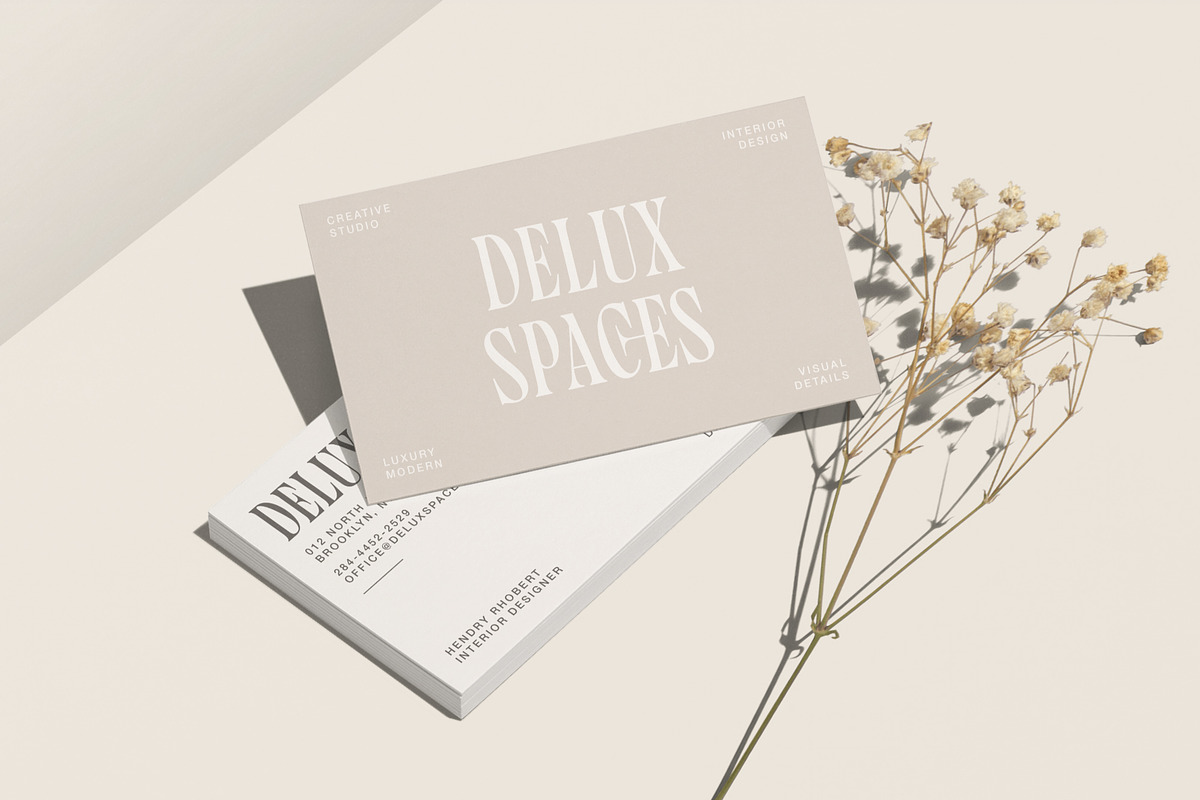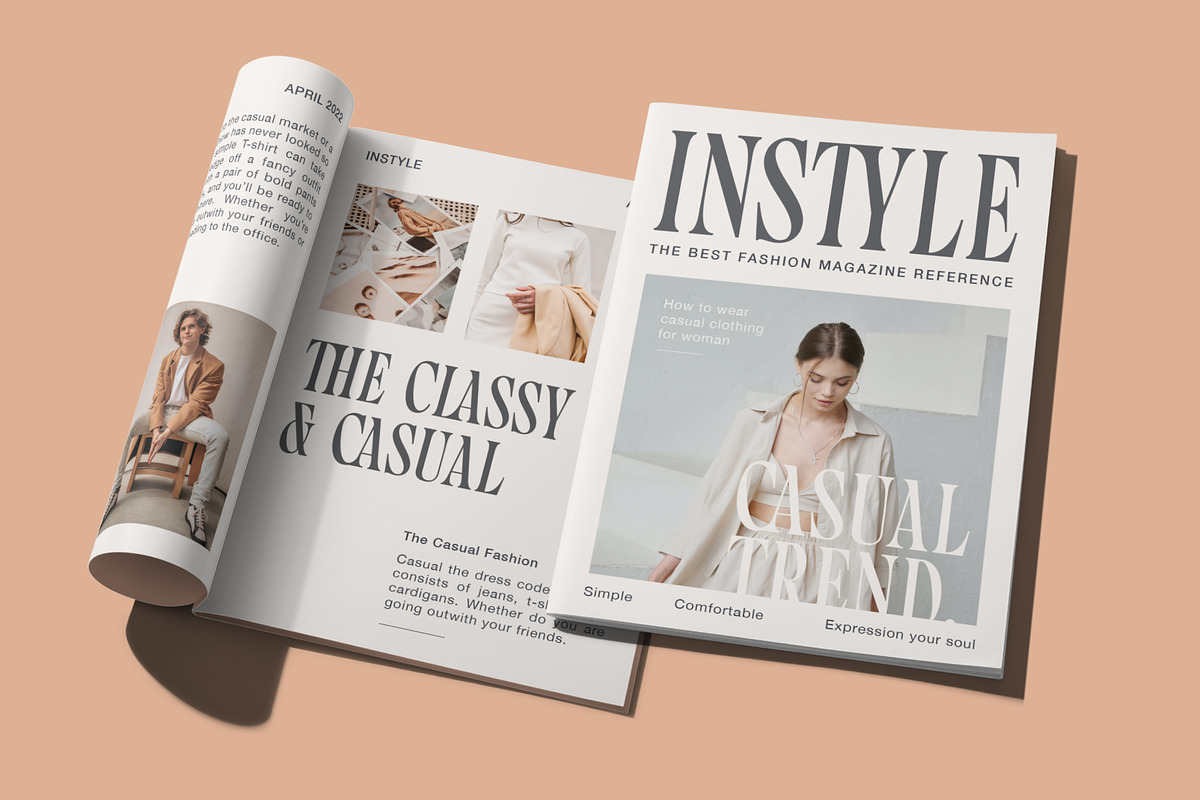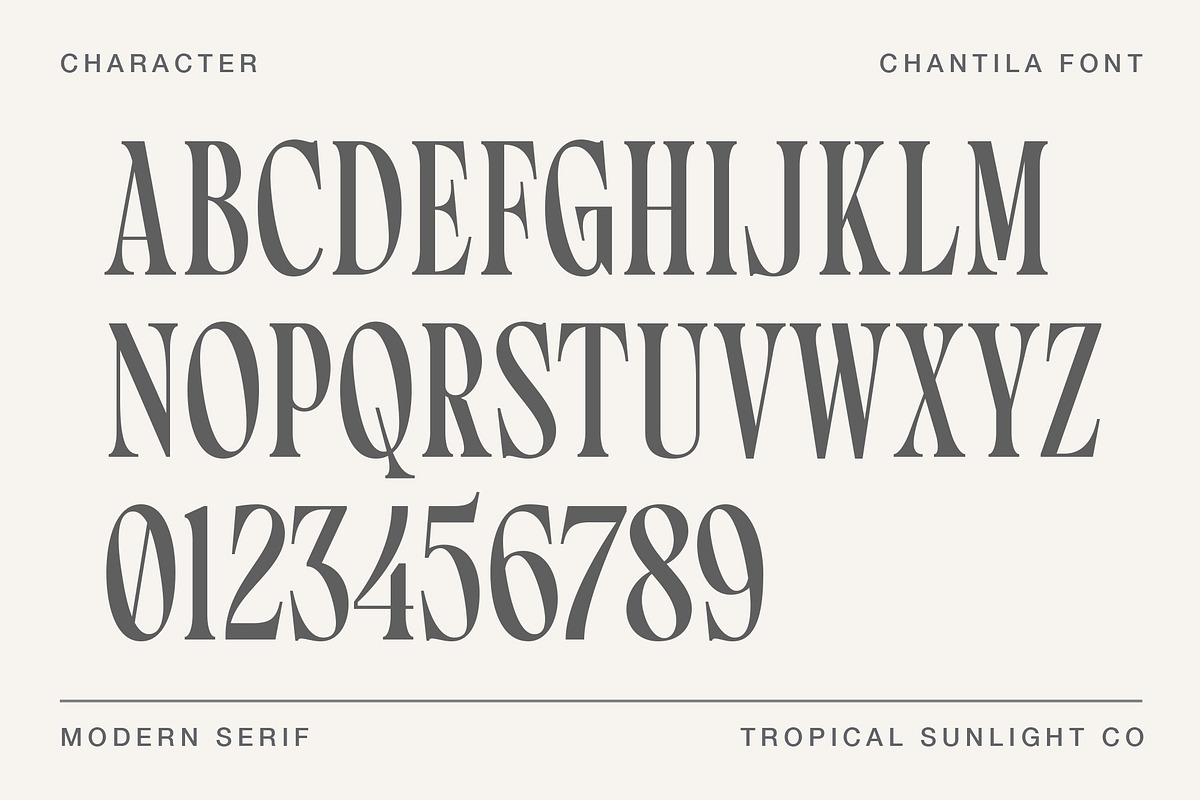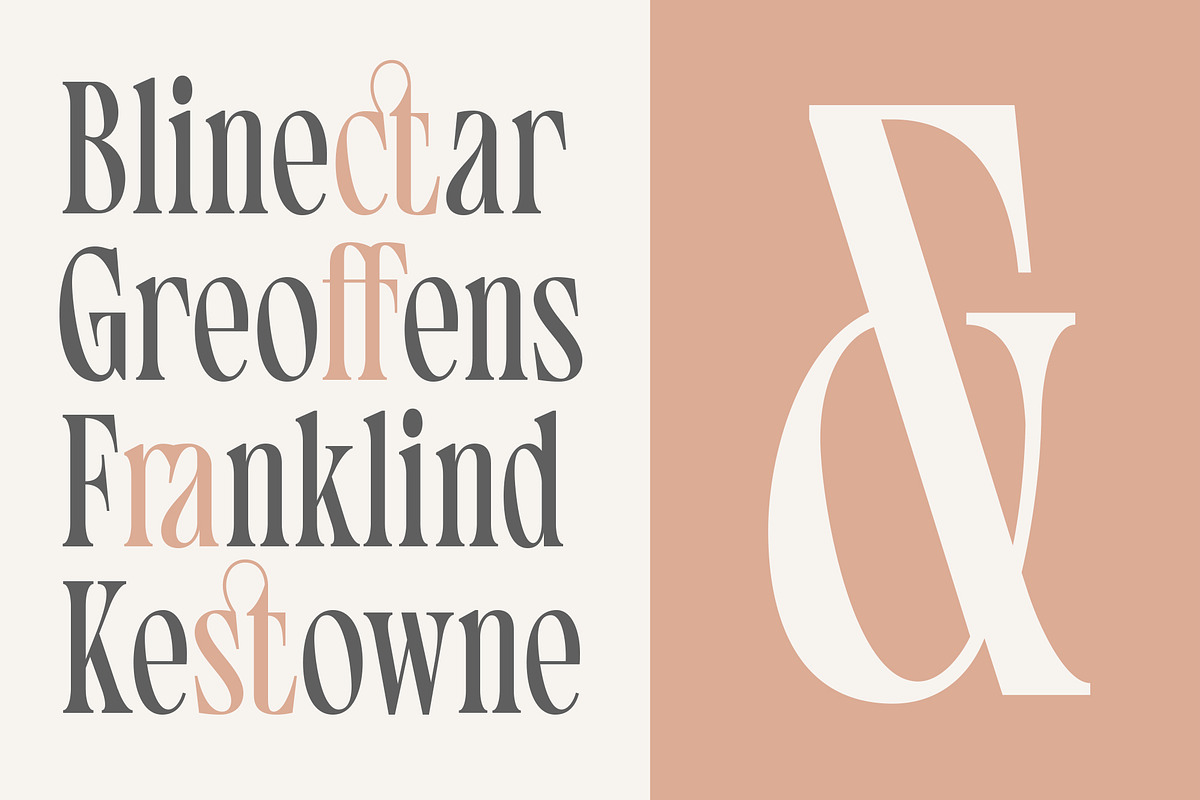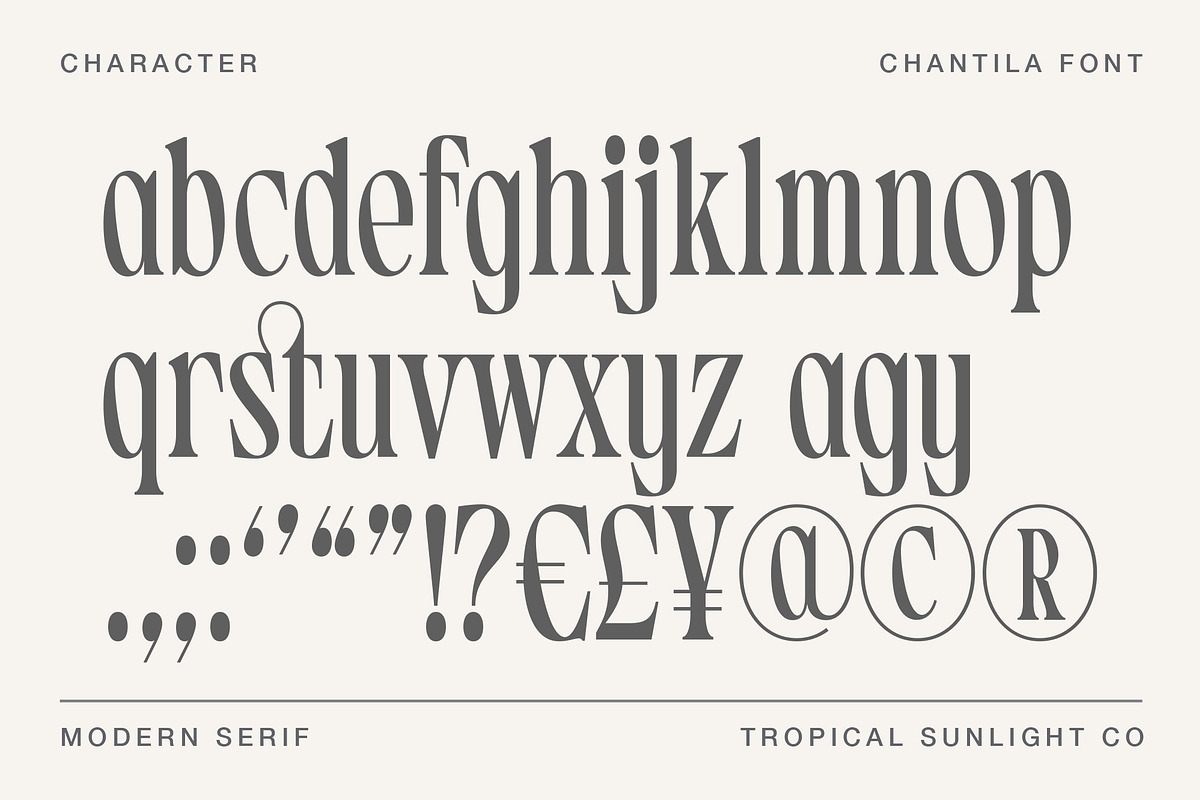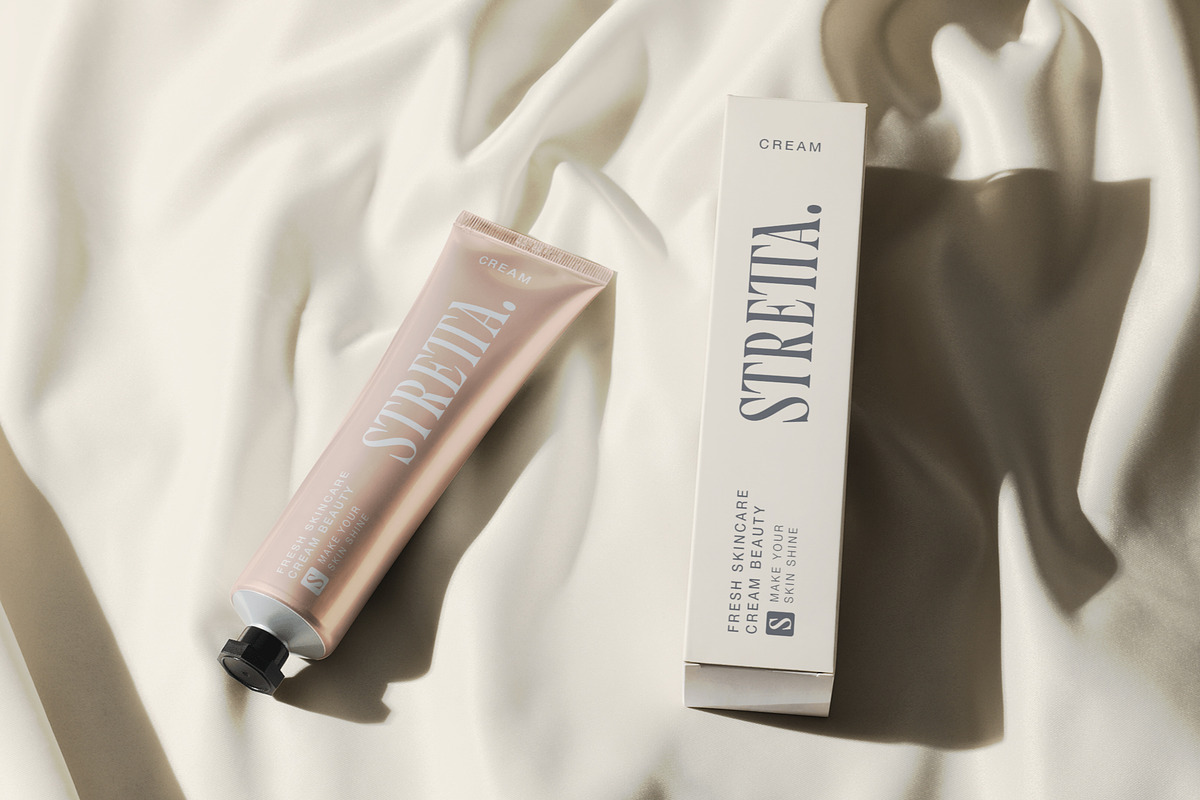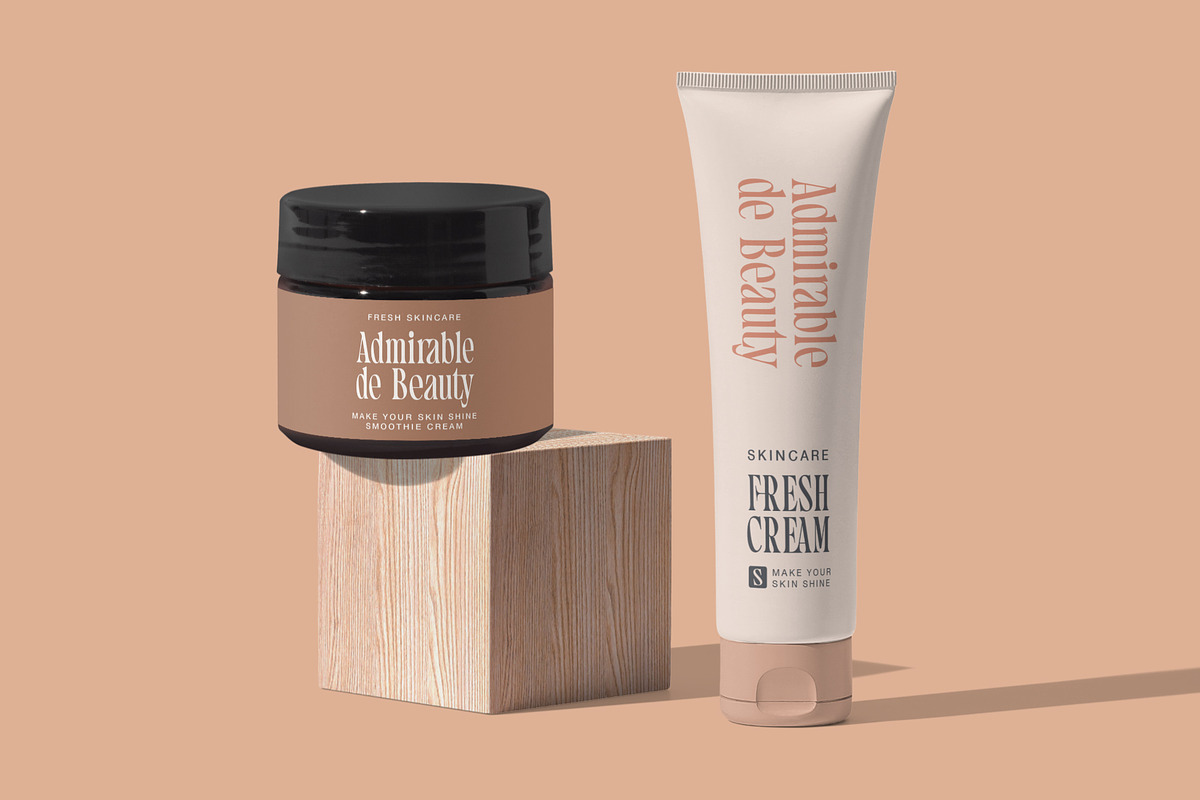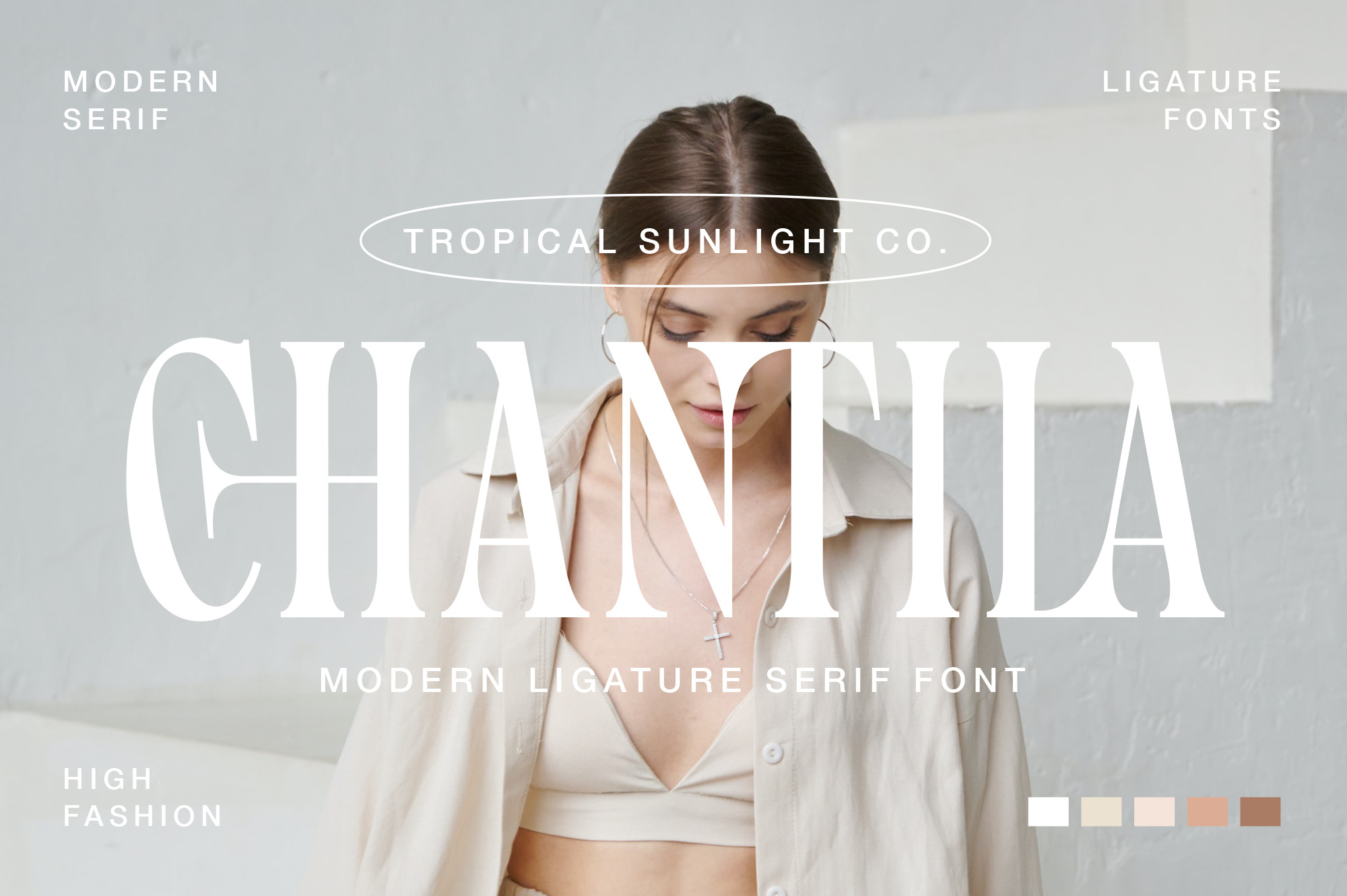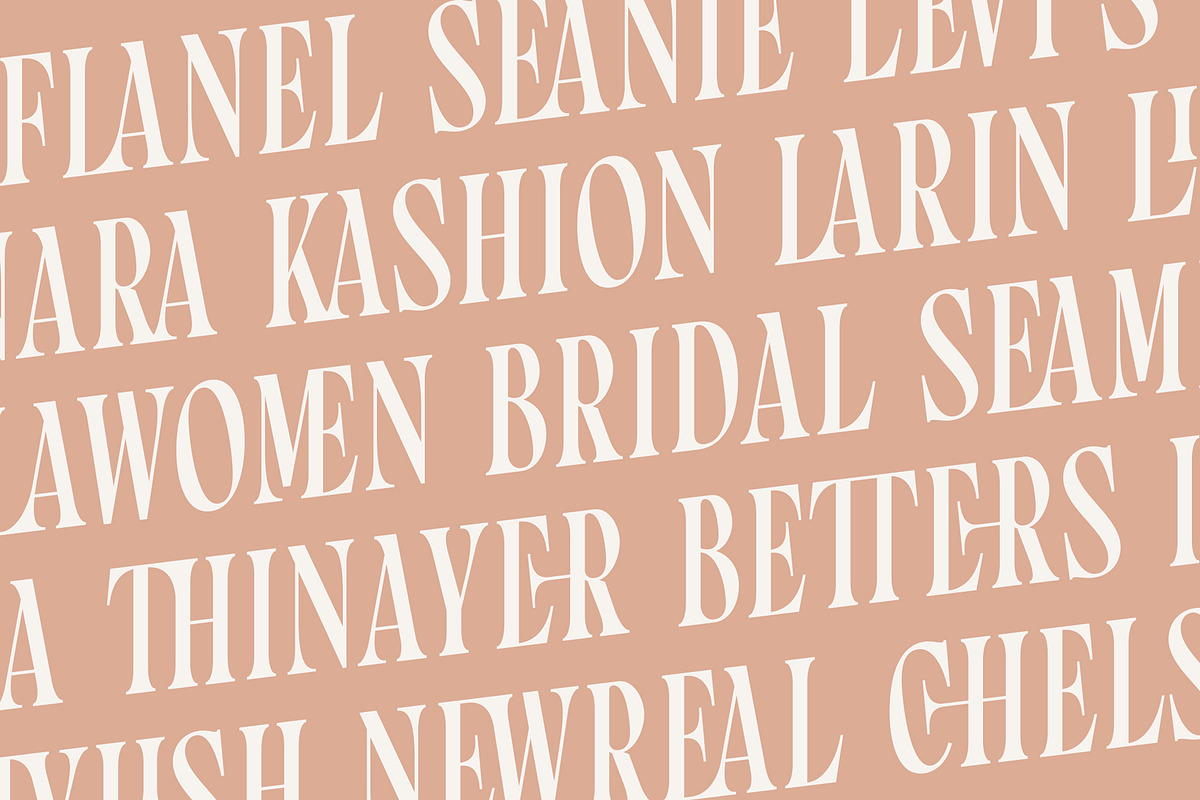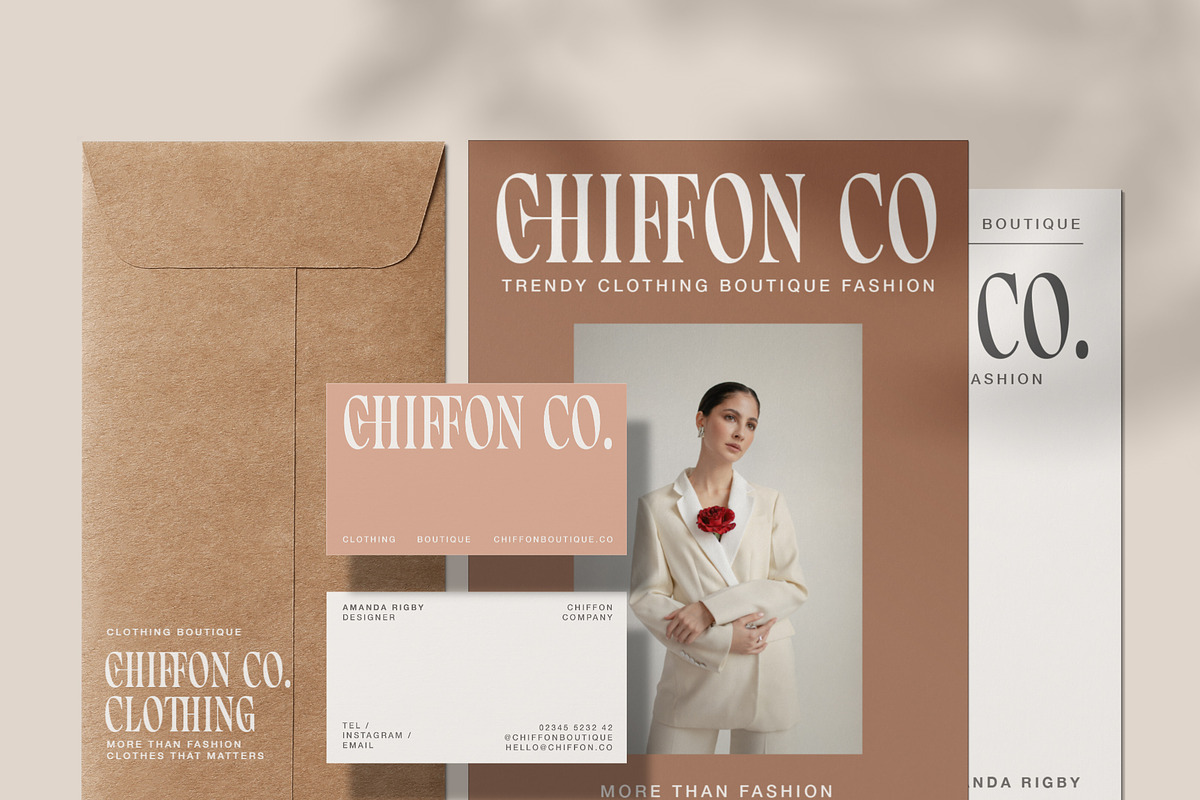
Chantila - Modern Serif Font
The font is called "Chantila", it is modern serif with fashionable themes. The font comes with many beautiful ligature features. This collection matches apply in some designs such as the logotype, quotes, wedding invitation, business card, packaging, branding, and more custom design.
- Uppercase, lowercase, numeral, symbol and punctuation
- Alternate and Ligature